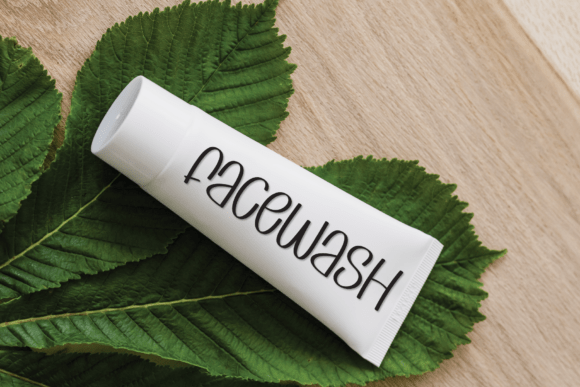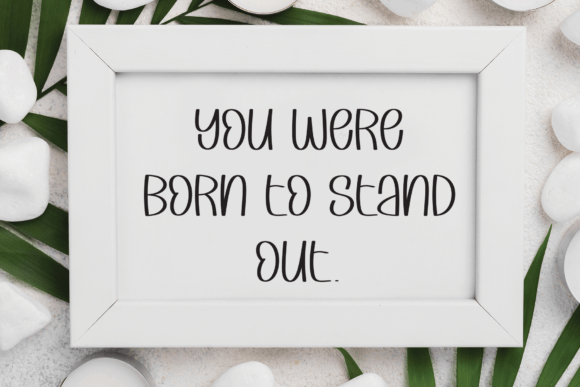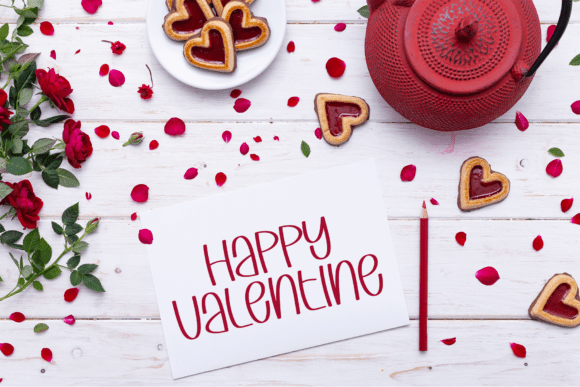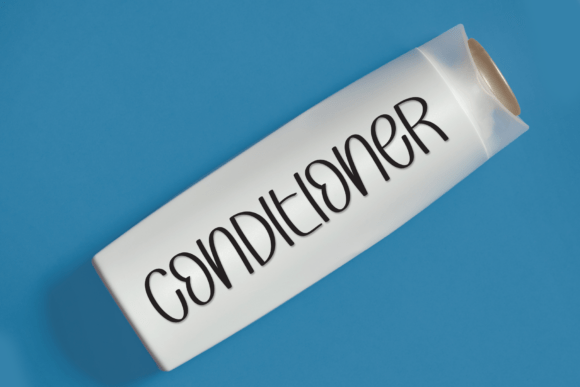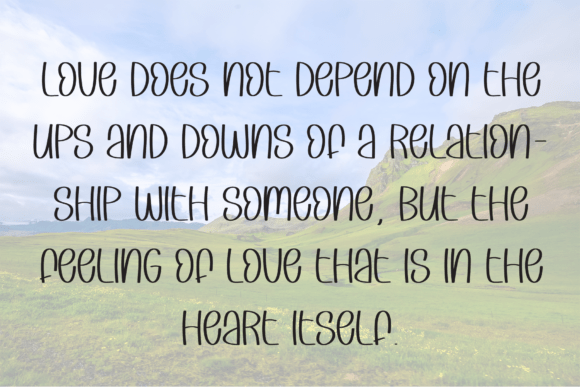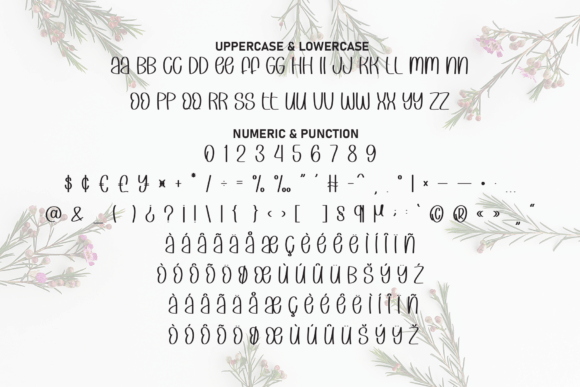
Introducing Christmas Wildflower Font: A Delightful Handwritten Display Font
Are you looking for a font that can add a touch of sweetness and friendliness to your designs? Look no further than the Christmas Wildflower Font, a charming and delightful handwritten display font that’s perfect for crafting wedding invitations, cards, and other designs that require a playful and joyful aesthetic.
A Perfect Blend of Whimsy and Elegance
Christmas Wildflower Font is a unique and irresistible font that’s designed to bring a lively and joyful vibe to any design. Its handwritten style is both elegant and whimsical, making it perfect for designers and crafters who want to add a personal touch to their work. Whether you’re creating wedding invitations, birthday cards, or other celebratory designs, this font is sure to impress.
Key Features of Christmas Wildflower Font
- Handwritten Display Font: Christmas Wildflower Font is a handwritten display font that’s designed to make a statement. Its unique and quirky style is perfect for adding a personal touch to your designs.
- Sweet and Friendly: This font exudes both sweetness and friendliness, making it perfect for designs that require a warm and inviting tone.
- Playful and Joyful: Christmas Wildflower Font is designed to bring a lively and joyful aesthetic to your designs. Its playful style is perfect for wedding invitations, birthday cards, and other celebratory designs.
- Perfect for Wedding Invitations and Cards: This font is perfect for crafting beautiful wedding invitations and cards that require a touch of elegance and whimsy.
Why Choose Christmas Wildflower Font?
There are many reasons why designers and crafters choose Christmas Wildflower Font for their projects. Here are a few:
- Unique and Quirky Style: This font has a unique and quirky style that’s sure to make your designs stand out from the crowd.
- Elegant and Whimsical: Christmas Wildflower Font is both elegant and whimsical, making it perfect for designs that require a touch of sophistication and playfulness.
- Easy to Read: Despite its playful style, Christmas Wildflower Font is easy to read, making it perfect for designs that require a clear and concise message.
- Versatile: This font is versatile and can be used for a wide range of designs, from wedding invitations and cards to posters and social media graphics.
Christmas Wildflower Font is a charming and delightful handwritten display font that’s perfect for designers and crafters who want to add a touch of sweetness and friendliness to their designs. Its unique and quirky style is sure to make your designs stand out from the crowd. Whether you’re creating wedding invitations, birthday cards, or other celebratory designs, this font is sure to impress.